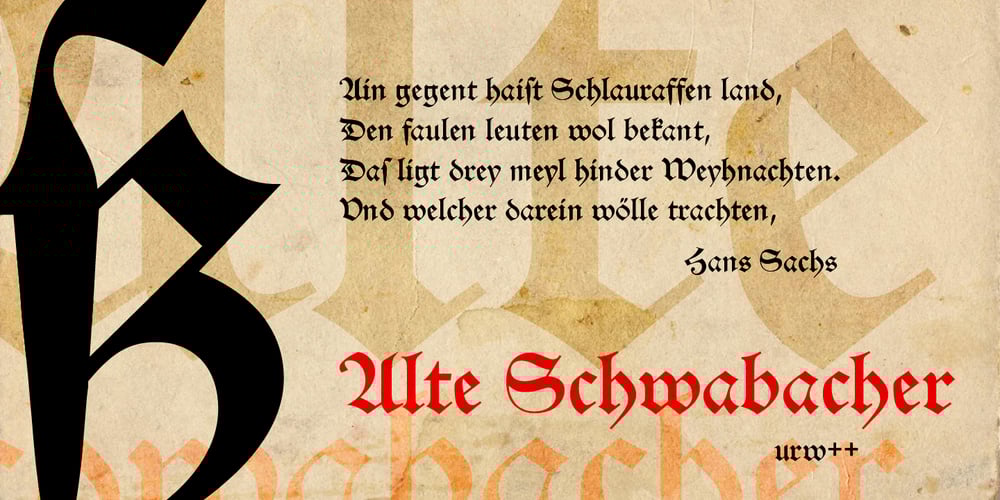
Alte Schwabacher
Alte Schwabacher font
Alte Schwabacher Font Family was designed by URW++ and published by URW Type Foundry. Alte Schwabacher contains 3 styles and family package options. Schwabacher was the predominantly used typeface in Germany from about 1470 until about 1530. It has round character forms other than Textura or Fraktur.